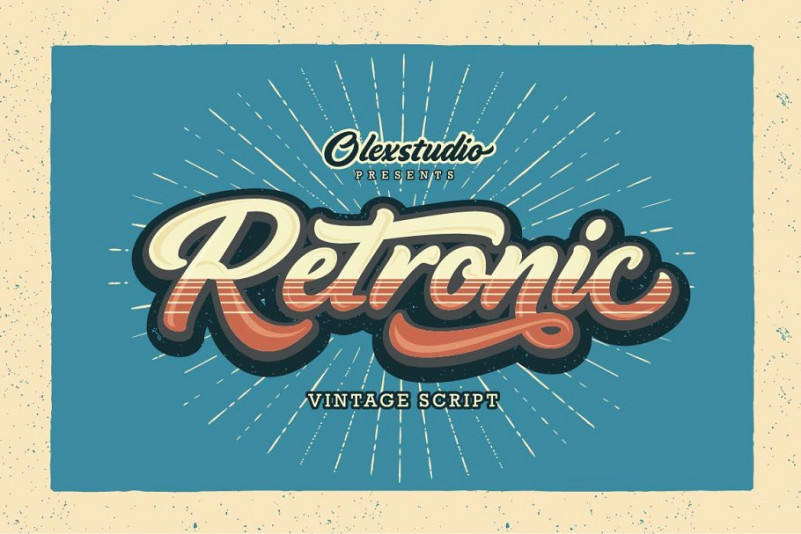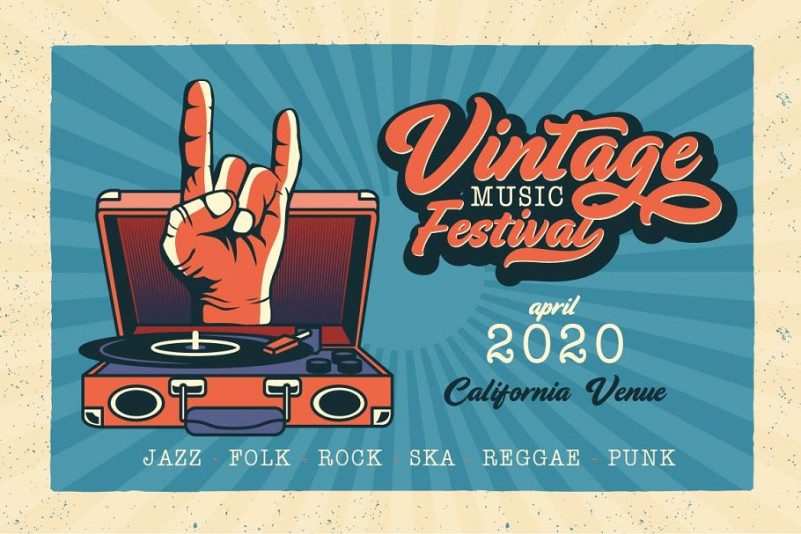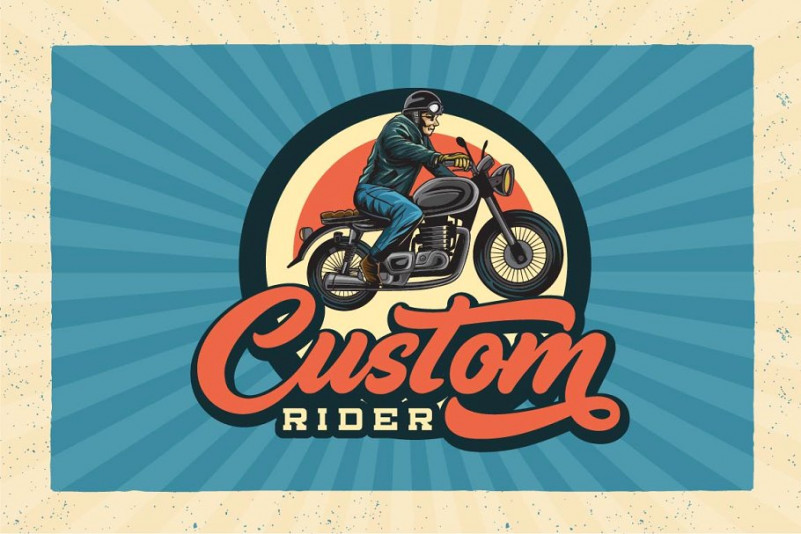
RETRONIC Font
RETRONIC – Vintage Script This Font will look gorgeous on all your designs, invitation, book, branding materials, logo’s, t-shirt, poster and all project design other.